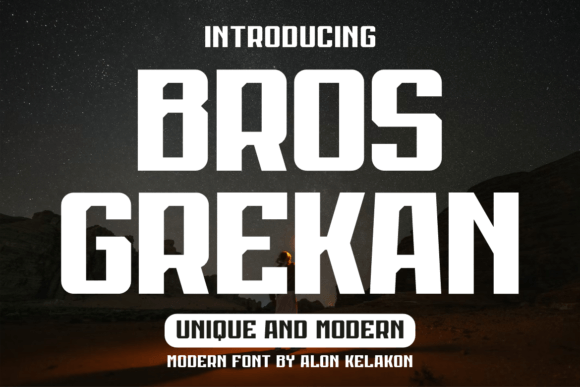
The Designer’s Delight: Bros Grekan Font
I’ll never forget the struggle I faced while working on a project for a bold and edgy client. I had to find the perfect font that would convey their brand’s confidence and assertiveness. After hours of scouring through font libraries, I stumbled upon Bros Grekan – a game-changing sans serif font that instantly elevated my design. In this article, I’ll share my experience with Bros Grekan, its features, and how to make the most of it in your designs.
What I Love About Bros Grekan ✨
• ✅ Bold and Assertive: Bros Grekan exudes confidence and makes a statement in any design.
• ✅ Versatile: This font is suitable for a wide range of projects, from branding and advertising to packaging and digital media.
• ✅ Clean and Modern: The sans serif design ensures that your text remains clear and easy to read, even at smaller sizes.
• ✅ High-Quality: Bros Grekan is crafted with attention to detail, making it perfect for professional designs.
• ⚠️ Limited Script Options: Bros Grekan is a sans serif font, which might limit its use in projects requiring elaborate script fonts.
• ⚠️ Not Suitable for Body Text: Due to its bold nature, Bros Grekan might not be the best choice for lengthy body text.
The Story Behind Bros Grekan
Bros Grekan was designed with the intention of creating a bold and assertive sans serif font. Inspired by modernist design principles, the font’s creator aimed to craft a typeface that would make a statement in any design. Through careful attention to detail and a focus on legibility, Bros Grekan was born.
What is the best use for Bros Grekan? Bros Grekan is ideal for bold headings, titles, and short text elements where you want to make a statement.
Can I use Bros Grekan for body text? While possible, Bros Grekan’s bold nature makes it less suitable for lengthy body text. Consider using a complementary font for body text.
Is Bros Grekan suitable for digital media? Yes, Bros Grekan is optimized for digital use and can be used in a variety of digital applications, including websites, social media, and presentations.
In conclusion, Bros Grekan is a versatile and powerful font that can elevate any design. Its bold and assertive nature makes it perfect for a wide range of projects, from branding and advertising to packaging and digital media. With its clean and modern design, Bros Grekan is sure to become a staple in your font library.